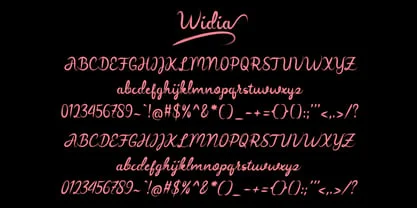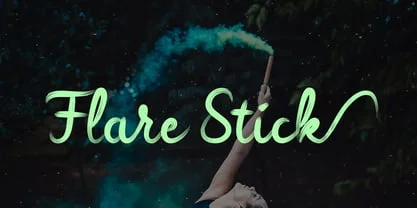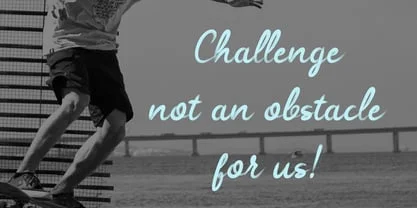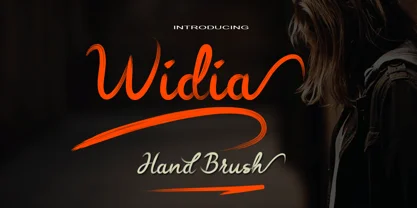
Widia Hand Brush Font
When a design brief calls for both strong typographic hierarchy support and immediate visual impact, type choices matter — Widia Hand Brush answers that brief. The typeface brings an elegant, calligraphic sensibility to a broad range of creative disciplines, with controlled contrast that rewards close inspection that holds up whether the work is print-first or screen-first.
In practice, Widia Hand Brush proves particularly effective for advertising campaigns, annual reports, web design, editorial layouts, product labels. Designers reaching for it find that the type decisions feel resolved rather than laboured — a useful quality when client timelines are tight.
The range of applications extends to high-end cosmetic packaging, event signage, packaging design, wedding invitations. That breadth is deliberate: the proportions and spacing were stress-tested across a wide range of mock briefs before the typeface was finalised.
Ascenders and descenders are drawn with generous extents that give the script its characteristic rhythm. Ligature pairs have been individually tested to prevent collisions, and the baseline is slightly bounced to suggest a natural, unhurried hand.
Graphic designers working on identity systems find Widia Hand Brush a reliable choice for projects that demand both personality and restraint. The design avoids the self-conscious quirkiness that dates quickly, settling instead for considered distinctiveness that holds up over time.